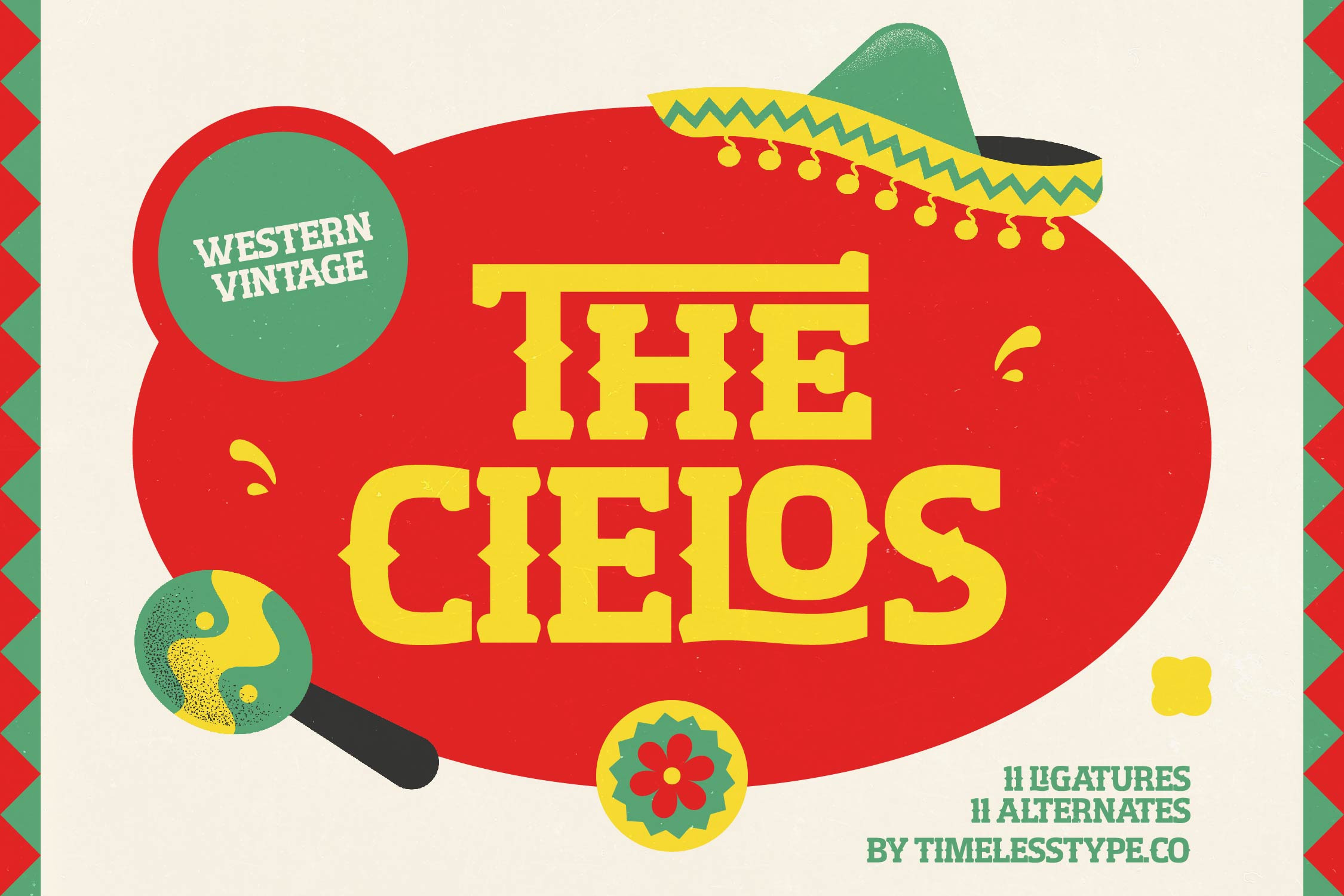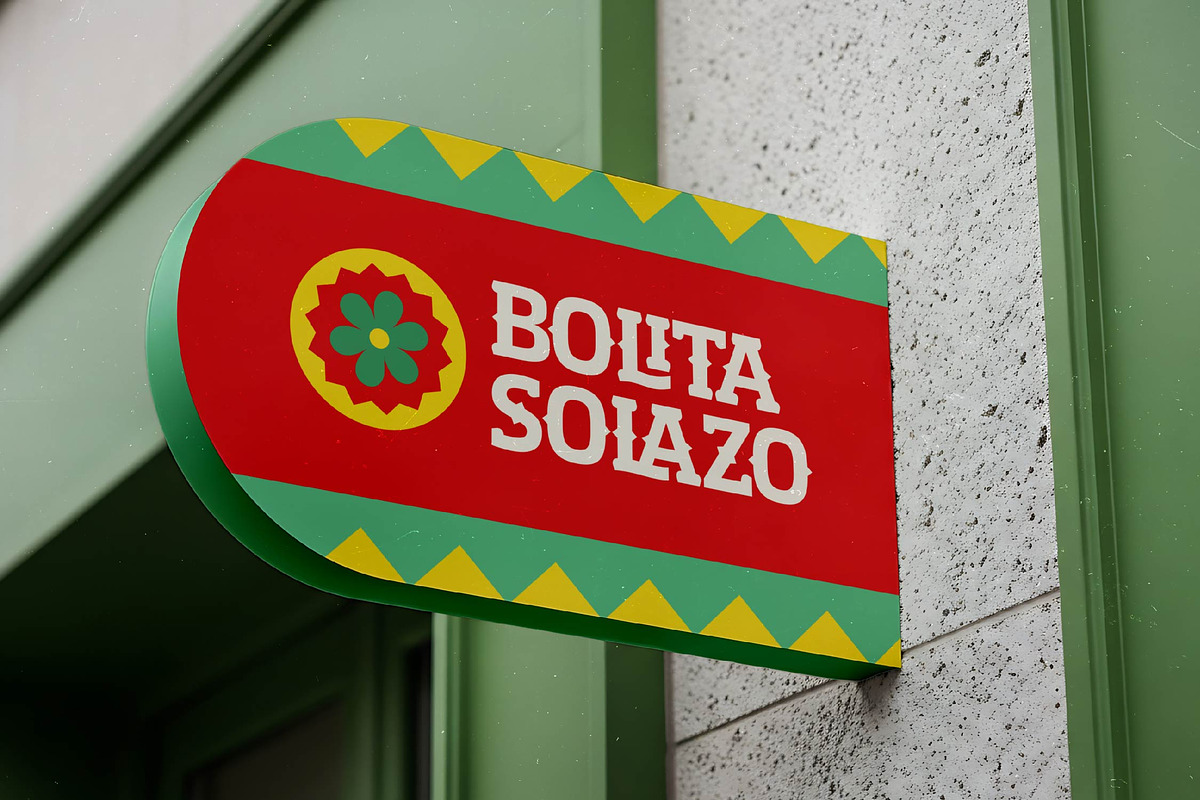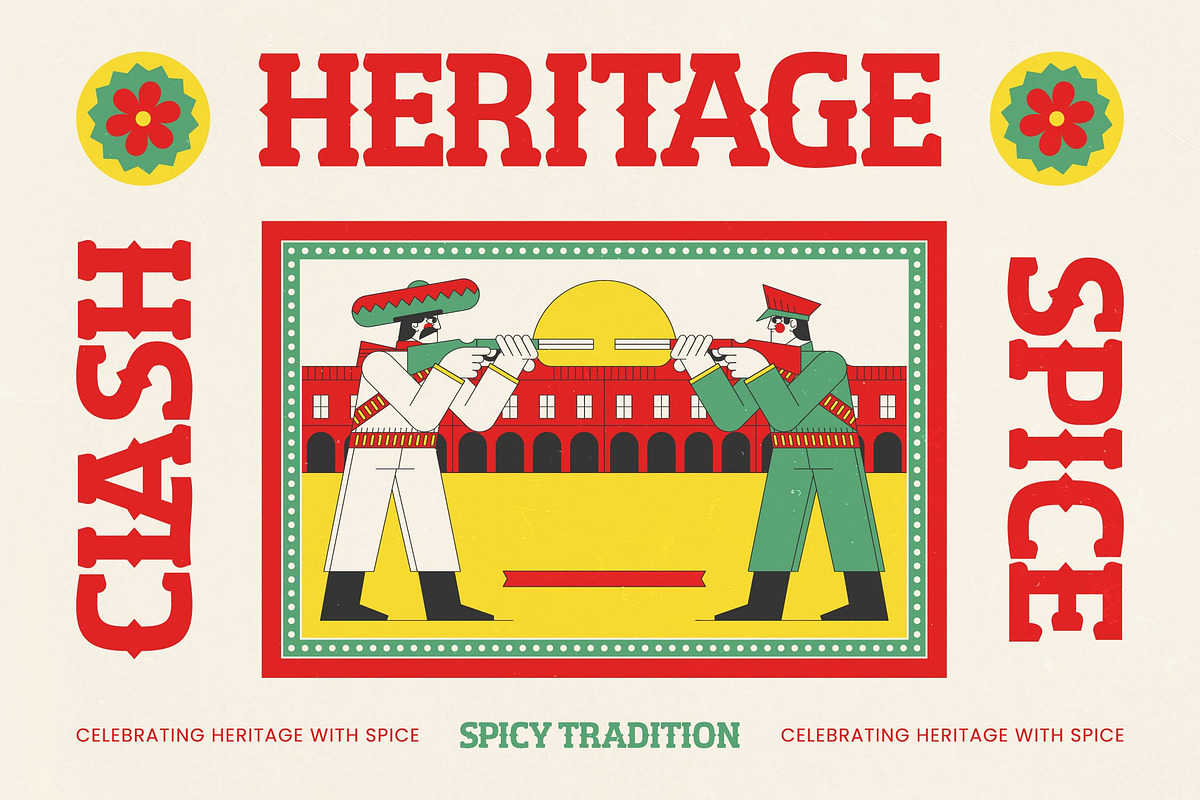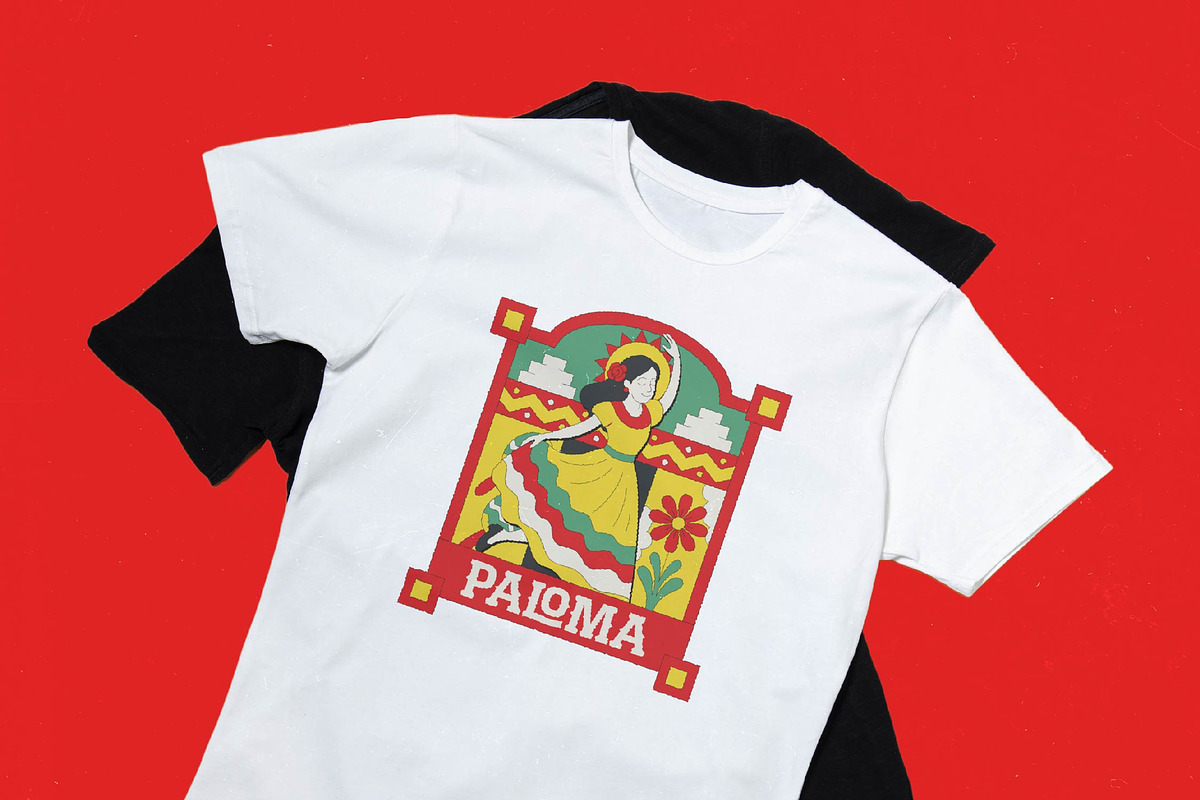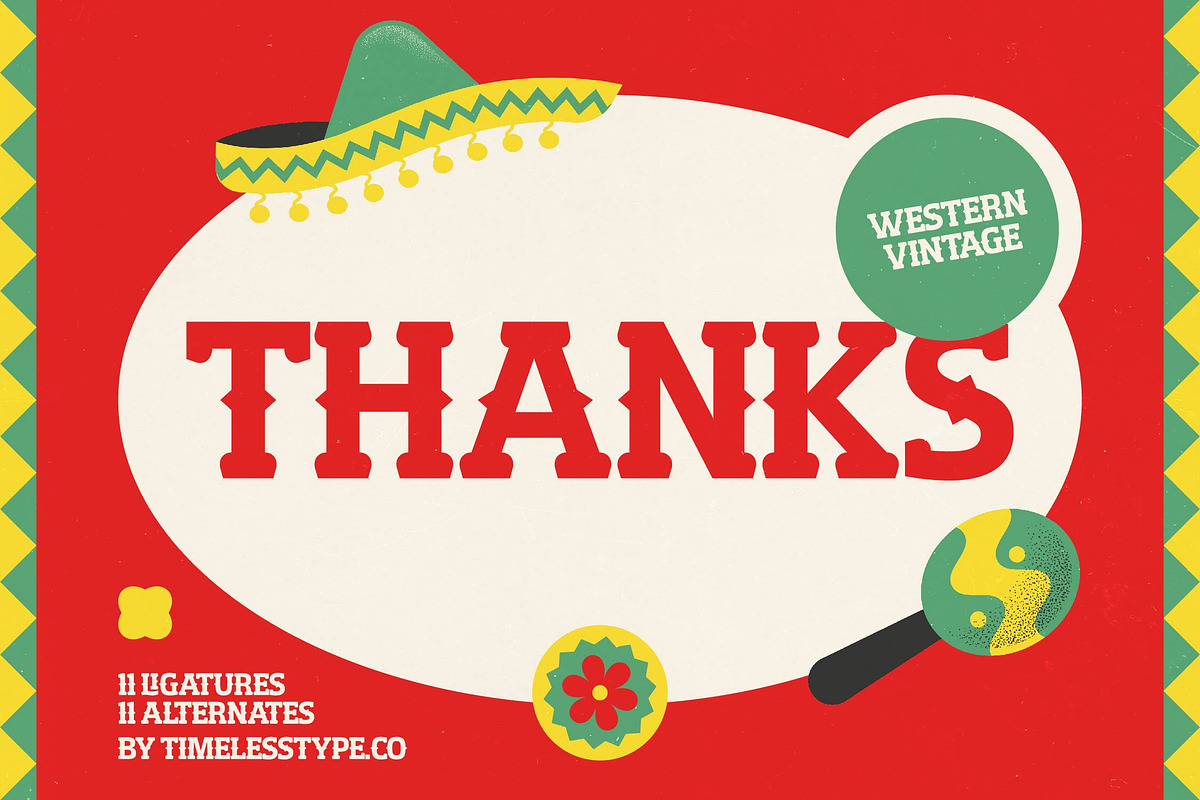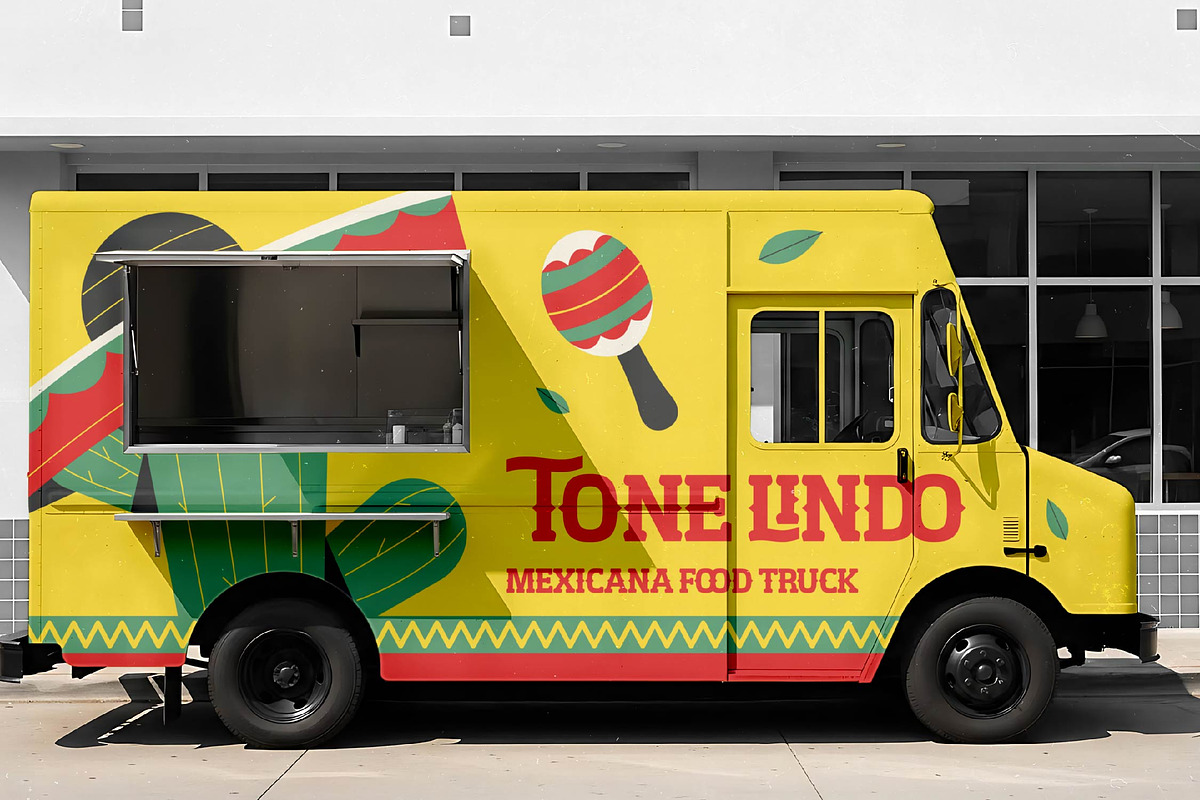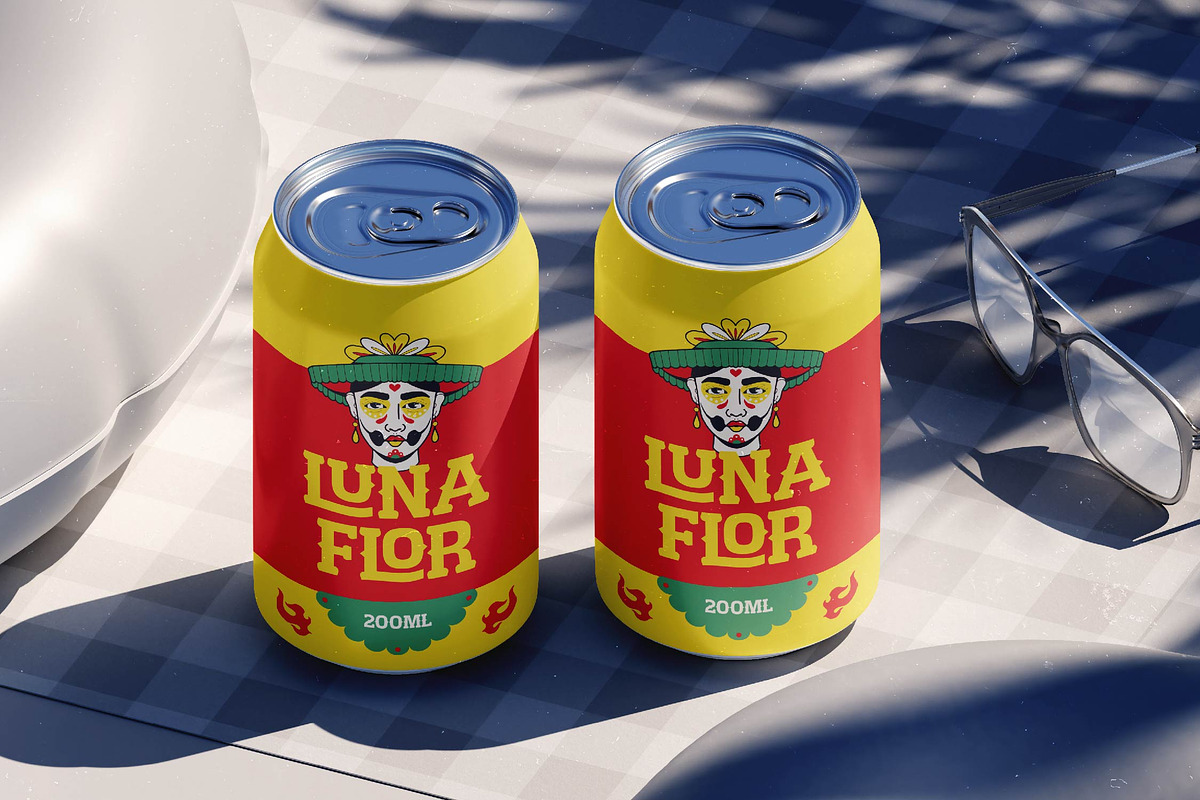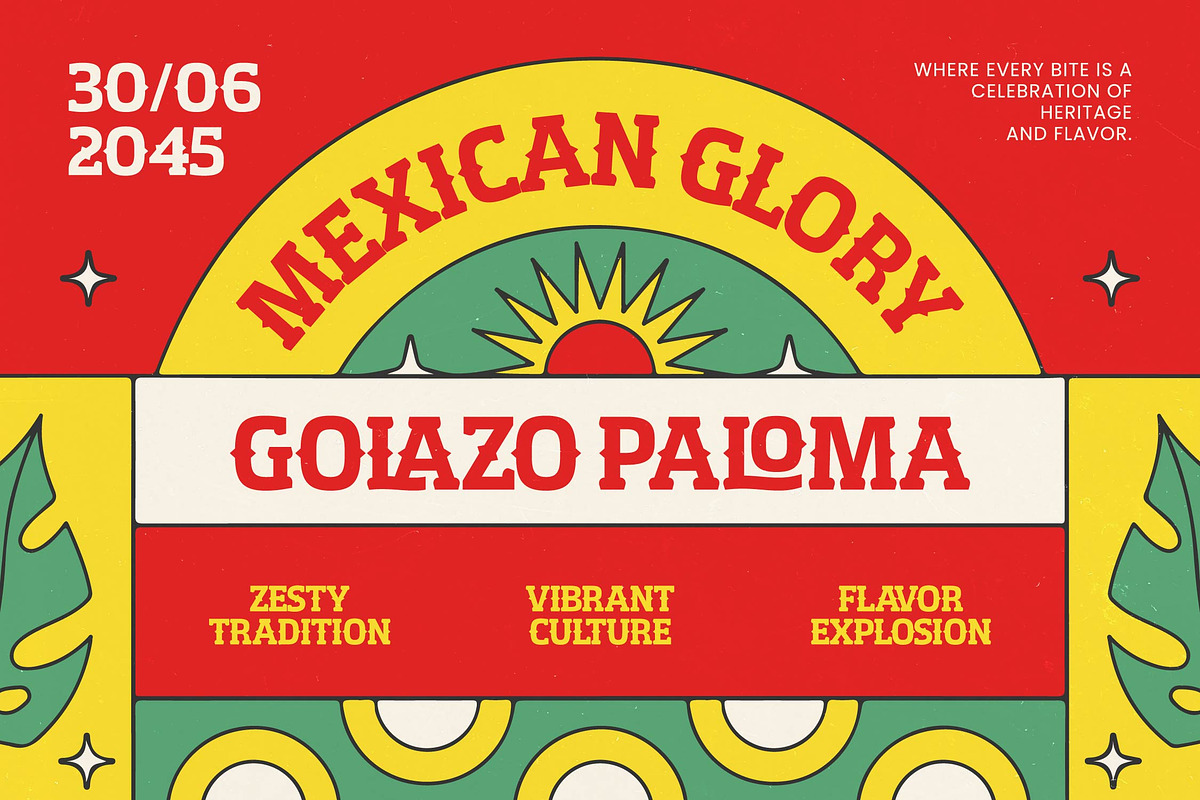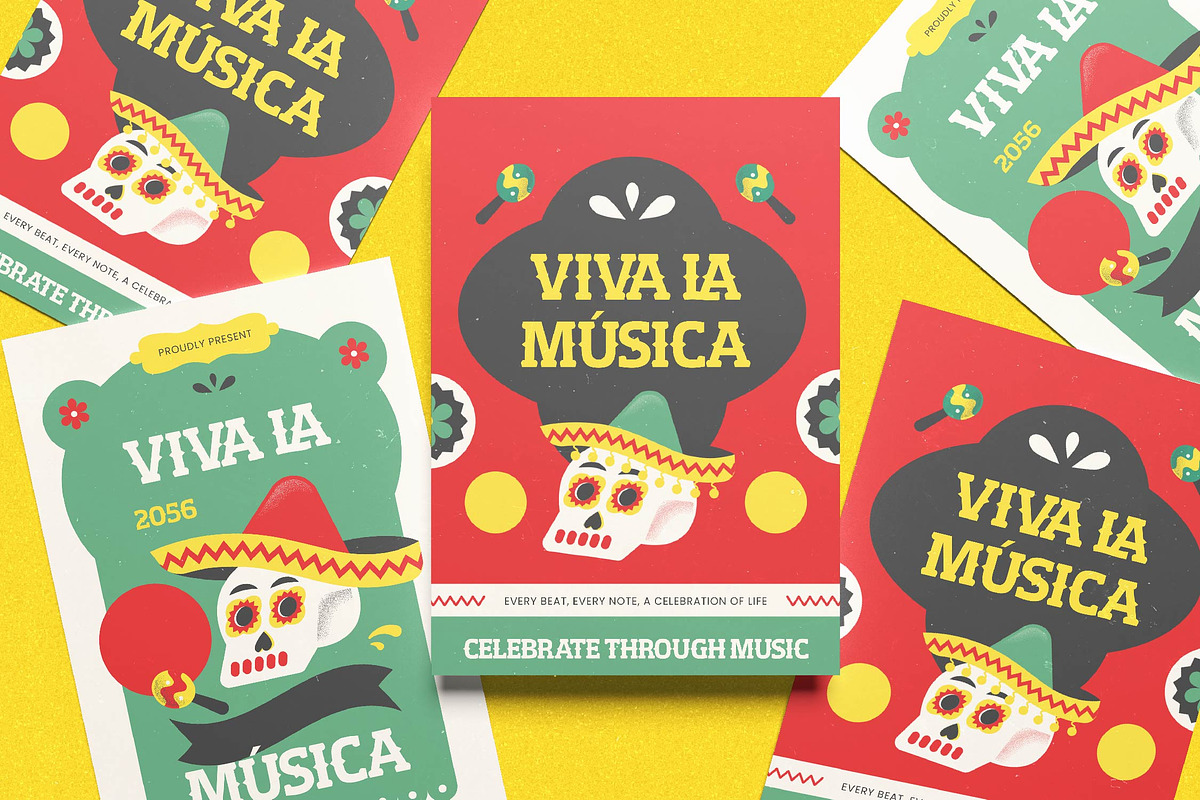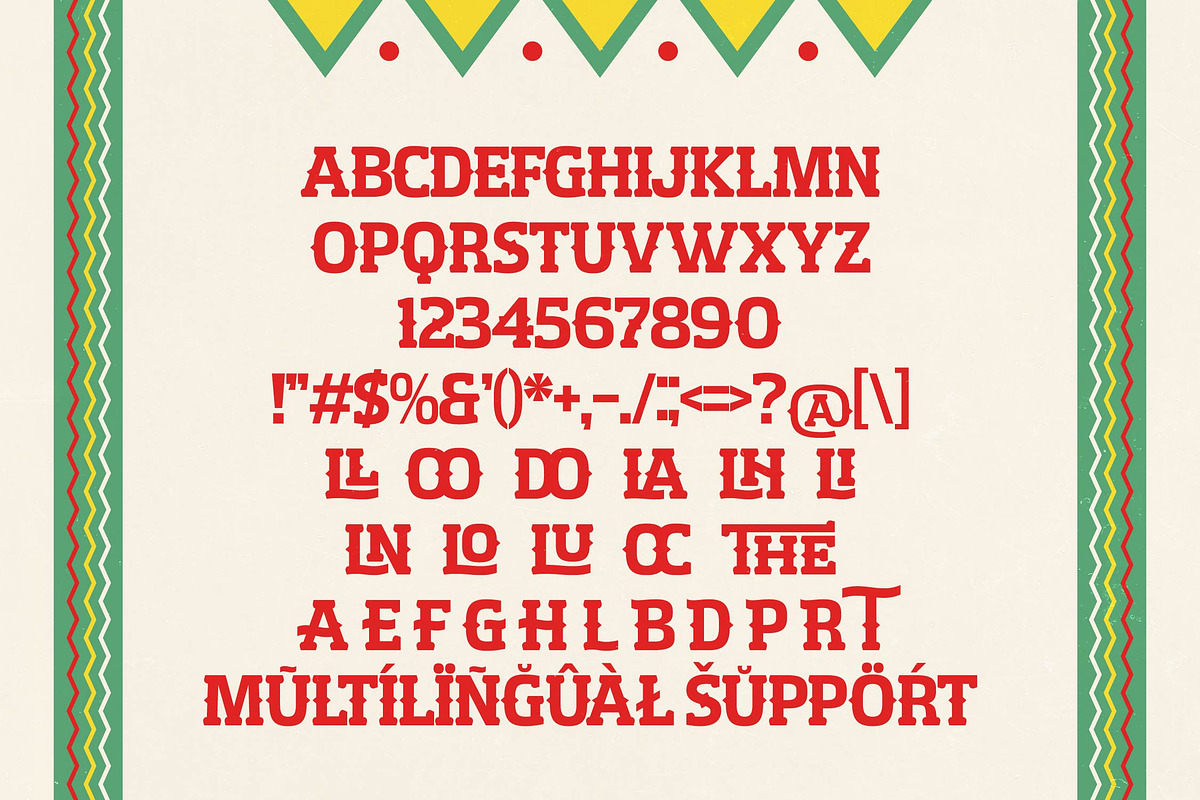
The Cielos – Western Vintage Font
The Cielos – Western Vintage Font Capture the timeless spirit of the frontier with a typeface that defines rugged elegance and authentic character. The Cielos – Western Vintage Font is a masterfully crafted slab serif that blends bold, blocky structures with a vintage aesthetic, making it an essential tool for any designer looking to command attention. Its strong visual impact ensures that your headlines remain memorable, while its carefully balanced proportions provide a professional finish that resonates with authenticity and strength.
Expand your creative horizons with a typeface built for high-performance design and global accessibility. This font is packed with 11 ligatures and 11 alternates, allowing for unique character combinations that elevate custom typography to a professional level. With its extensive multilingual support, The Cielos – Western Vintage Font adapts seamlessly across global markets, making it incredibly versatile for international projects. This adaptability ensures that your message remains clear and impactful, regardless of the linguistic requirements of your creative campaign.
Elevate your brand identity with a distinctive, high-impact presence across multiple high-end mediums. The Cielos – Western Vintage Font is the perfect choice for luxury branding, editorial design, and thematic packaging, particularly for the beverage and hospitality industries. It is also ideally suited for poster design, apparel branding, and social media graphics that require a bold, adventurous personality. By choosing The Cielos – Western Vintage Font, you are investing in a versatile typeface that transforms ordinary layouts into extraordinary visual experiences.
Bridge the gap between traditional craftsmanship and modern marketing needs with a font that delivers unmatched character. As a commercially-focused asset, The Cielos – Western Vintage Font provides the perfect balance of historical charm and contemporary utility. Whether you are launching a new product or rebranding a heritage business, this premium font offers the typographic excellence required to stand out in a saturated market. Secure The Cielos – Western Vintage Font today to bring a bold, western-inspired flair to your most ambitious design projects.